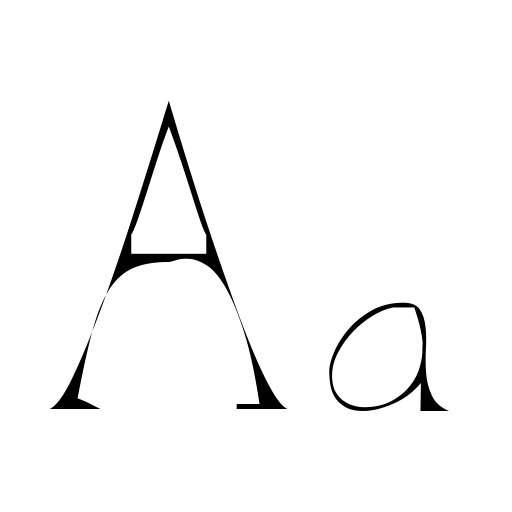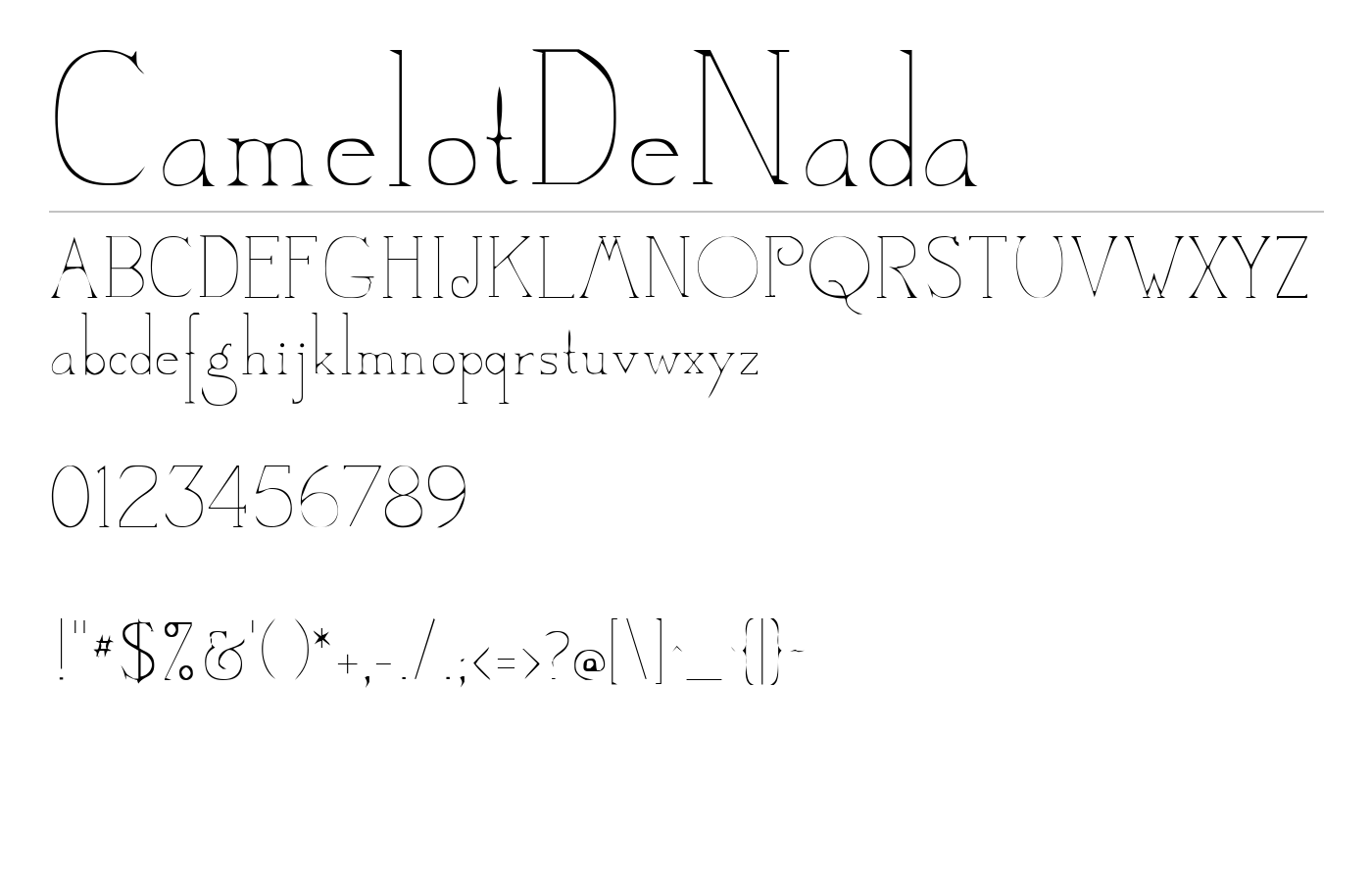
CamelotDeNada is an elegant, ultra-thin serif font with a delicate and refined character, featuring high contrast between thick and thin strokes and finely bracketed serifs. Its unique letterforms blend a vintage aesthetic with a modern twist, making it ideal for artistic branding, luxury packaging, and sophisticated editorial headlines. This font’s airy spacing and graceful curves lend a distinctive, stylish flair perfect for projects seeking a blend of classic charm and contemporary elegance.
CamelotDeNada Font
About CamelotDeNada Font